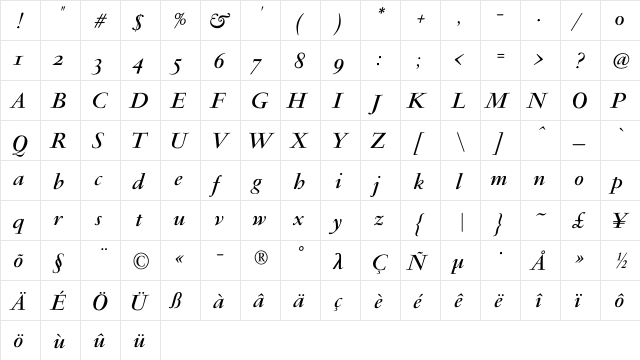
PF Garamond Classic OsF Bold Italic Font Preview
Design Context for PF Garamond Classic OsF Typeface
PF Garamond Classic OsF has the warm character of retro typography — evoking diners, record sleeves, and the golden age of print advertising. The dynamic lean of this cut emphasises speed and emphasis in any layout. Its bold stroke weight gives it real presence on the page.
Font Pairing: Combine PF Garamond Classic OsF with a simple slab or neutral sans — period-accurate companions reinforce the vintage feel without competing for attention.
Pro Tip: Use PF Garamond Classic OsF for headlines and pull quotes rather than body copy — its personality is best appreciated in short, focused bursts.